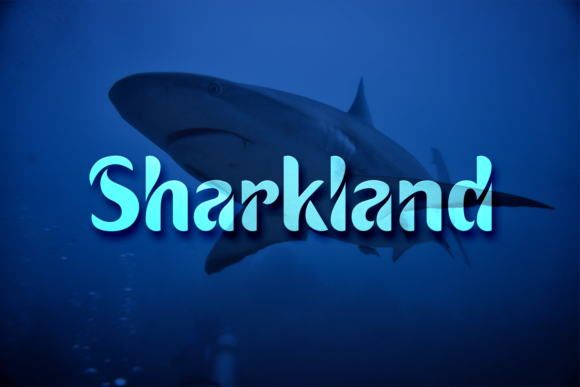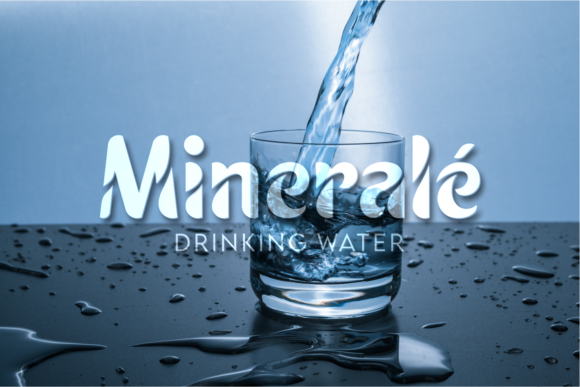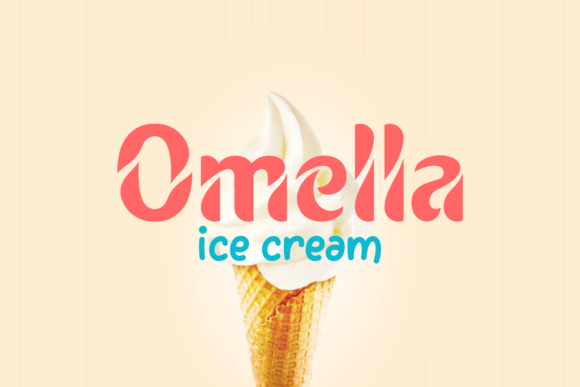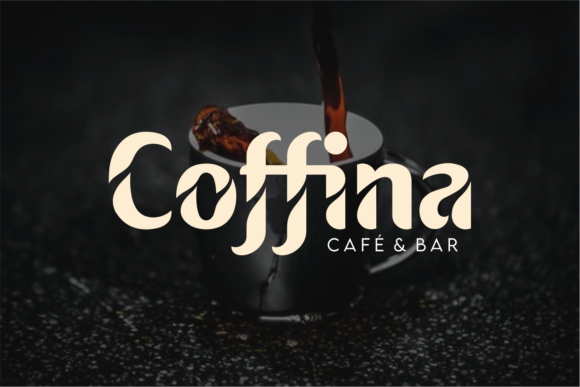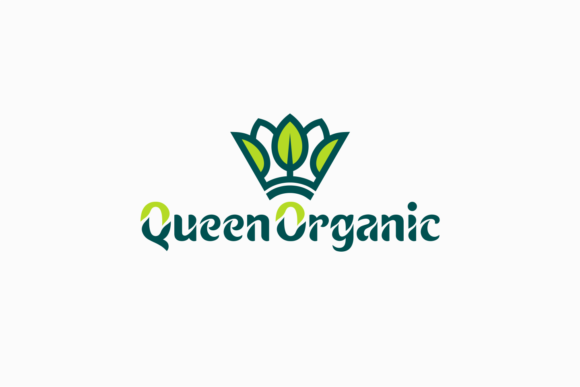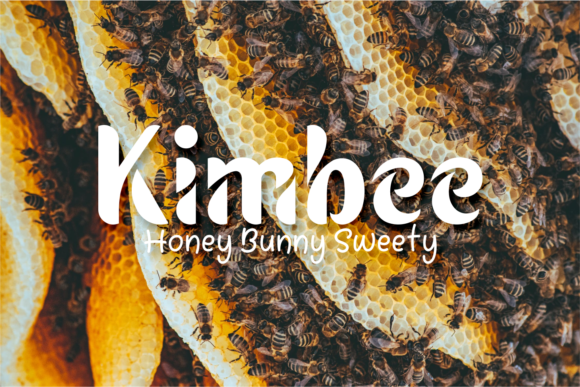
Introduction to Quakeland Font
Have you ever found yourself staring at a blank design canvas, desperately seeking the perfect font to bring your creative project to life? You know, that moment when everything seems to be falling into place, but something’s still missing? For designers, it’s a familiar feeling, and one that can be both exciting and frustrating at the same time.
Well, we’ve got some good news for you. Say hello to the Quakeland Font, a cool, modern, and stylish display font that’s sure to add a smart, cool touch to your web designs, logos, or any other creative project you’re working on.
As a valuable design resource, Quakeland Font offers a high-quality, free download that’s perfect for anyone looking to elevate their design game. With its transparent background, you can easily overlay it on any image or design element, making it a versatile choice for designers of all levels.
Key Features of Quakeland Font
• High-quality font design ideal for creative projects requiring a unique touch
• Designed with a focus on readability and versatility, suitable for both digital and print use
• Perfect for designers, artists, and creatives looking for a distinctive and high-quality font for their projects
Honest Review: Quakeland Font
I recently came across the Quakeland Font, a free download that caught my eye due to its unique design. As a designer, I appreciate discovering high-quality design resources that can elevate a creative project. In this review, I’ll share my thoughts on what works well and what could be improved.
• Unique and creative style that sets it apart from other fonts
• High-quality design that’s perfect for a variety of creative projects
• Transparency is great, allowing for easy use with a transparent background
However, I do have a few reservations:
• ⚠️ Limited font weights and styles, which might limit its use in certain projects
• ⚠️ Not suitable for formal or professional use due to its playful design
Overall, I’m impressed with the Quakeland Font’s unique design and high-quality aesthetic. While it may not be perfect for every project, it’s a great addition to any designer’s toolkit. If you’re looking for a fun and creative font to add some personality to your design, the Quakeland Font is definitely worth checking out.
Tips for Getting the Most Out of Quakeland Font
Experiment with different font sizes, colors, and combinations to create a visually appealing design. Use the Quakeland Font in conjunction with other design elements to create a cohesive and engaging visual identity.
The Quakeland Font is suitable for a wide range of creative projects, including graphic design, branding, and digital marketing materials. It can also be used in educational and informational materials, such as brochures, posters, and presentations.